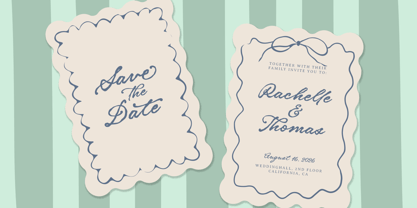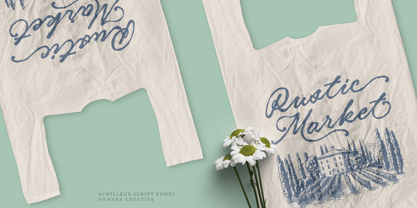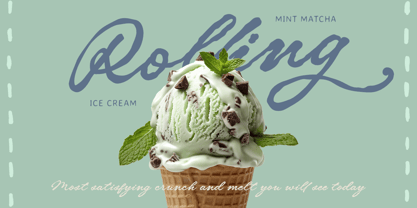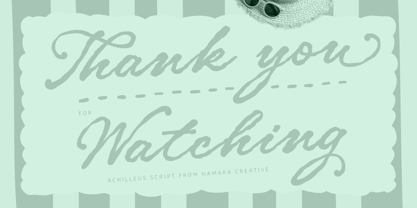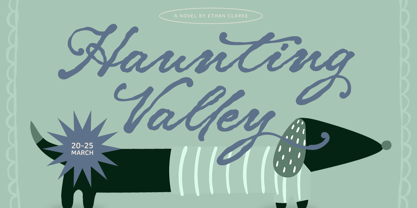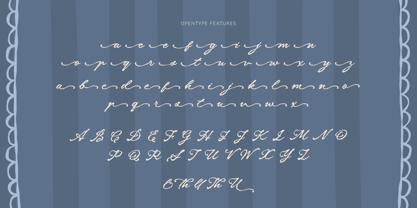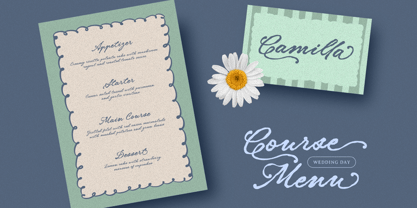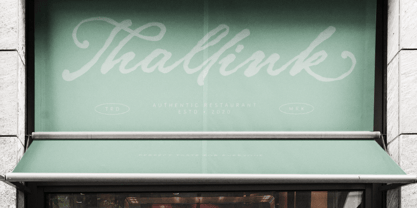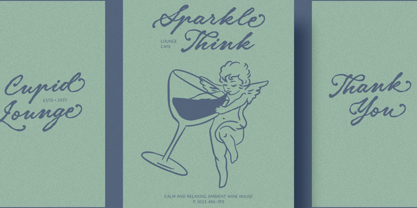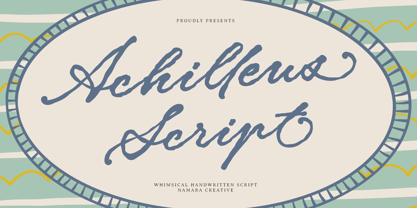
Achilleus
The Achilleus Font Family was designed by Eep Apringga and published by Namara Creative Studio. Achilleus contains 1 styles. More about this family
Meet Achilleus Script — a dreamy, whimsical handwritten script font that brings warmth, personality, and effortless elegance to every design it touches. Crafted by Namara Creative, Achilleus Script captures the soul of vintage calligraphy with a contemporary, playful twist, bold ink strokes, expressive swooshes, and lively letterforms that feel genuinely hand-drawn.
Key Features :
• Authentic Handwritten Style : Bold, flowing strokes inspired by vintage calligraphy with a modern, whimsical character.
• Full Character Set : Complete A–Z uppercase & lowercase, numbers 0–9, punctuation, and currency symbols included.
• Rich Features : Alternates & Ligatures, Stylistic alternates and contextual ligatures for unique, varied letterforms in every layout.
• Multilingual Support : Extended language coverage for international design projects across multiple markets.
Perfect For :
• Wedding invitations & stationery
• Logo & brand identity design
• Book covers, greeting cards & gift tags
• Tote bags & merchandise
• Menu, window signage & displays
If you love fonts that feel handmade and full of character, you’re going to love Achilleus Script which gives you both beauty and versatility in a single typeface.